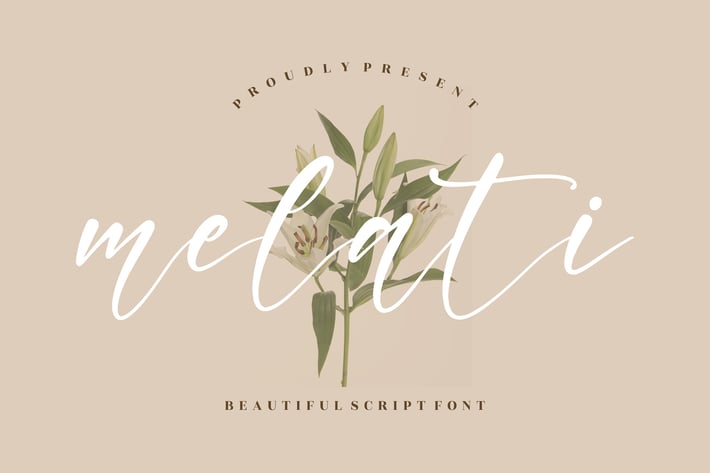
Melati Beautiful Script Font
Melati is an elegant script font with soft, flowing strokes inspired by natural handwriting. Its graceful curves and airy letterforms create a romantic, timeless aesthetic—perfect for elevated branding, invitations, and any design that needs a touch of beauty and calm sophistication.
Beautiful handwritten script with smooth curves
Light and elegant stroke style
Great readability for both long and short text
Ideal for branding, wedding designs, and aesthetic visuals
Wedding invitations & stationery
Branding for beauty, fashion, or lifestyle
Social media quotes & elegant captions
Greeting cards & thank-you notes
Product packaging & labels
Romantic editorial design
Soft, graceful strokes that bring effortless elegance to every word.